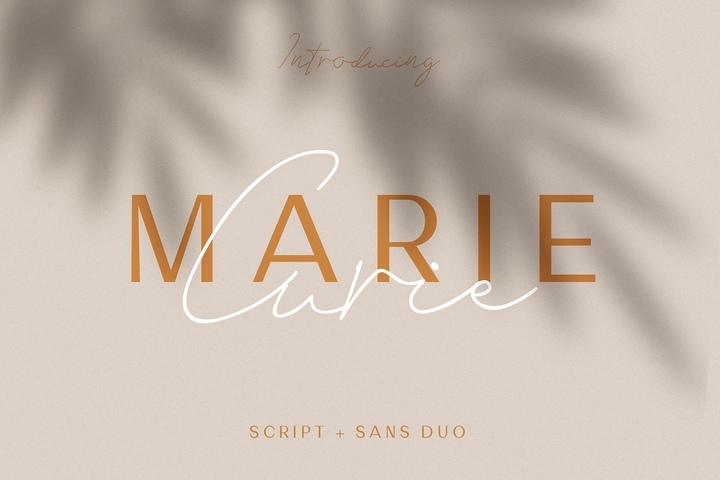
Marie Curie - Sans & Script Font
Marie Curie - Sans & Script Font is perfect for scientific research publications, women's empowerment campaigns, educational institution branding, STEM program materials, inspirational quote graphics, academic conference presentations, progressive healthcare branding, innovative laboratory signage, scholarship foundation materials, and pioneering research communications.
What makes Marie Curie - Sans & Script Font so exciting is its extraordinary ability to embody the groundbreaking spirit and intellectual courage of scientific discovery through complementary letterforms that seem to radiate both analytical precision and passionate dedication to knowledge. This inspiring font duo captures the essence of scientific excellence and pioneering achievement with characters that communicate both rational methodology and emotional commitment to discovery. The fonts' revolutionary design elements perfectly balance scientific authority with human inspiration, creating an indispensable toolkit that communicates intellectual courage, scientific innovation, and pioneering spirit, making them essential for organizations and projects celebrating the transformative power of scientific research and the remarkable individuals who dedicate their lives to advancing human knowledge.
Marie Curie - Sans & Script Font comes in multiple font families including Regular, Bold, Light, Italic, Bold Italic, Scientific, Pioneering, and Discovery variations for both sans and script versions. Each family member maintains the core inspirational characteristics while offering different intensity levels and stylistic approaches to suit various scientific and educational design requirements.
The scientific precision in Marie Curie - Sans & Script Font makes it particularly effective for research institutions and educational organizations where conveying both scientific credibility and inspirational motivation is crucial for engaging audiences with the wonder and importance of scientific discovery. The complementary fonts work exceptionally well together or independently across all scientific and educational applications, from research publications to motivational posters, maintaining consistent inspirational impact while offering design versatility.
Scientific communication professionals recognize how Marie Curie - Sans & Script Font transforms ordinary research communications into powerful statements of scientific excellence and human achievement. The font duo's comprehensive character sets include extensive scientific symbols, mathematical notation, and international language support that accommodate complex scientific requirements and global research collaboration needs.
For creative professionals serving research institutions, educational organizations, and science advocacy groups, Marie Curie - Sans & Script Font serves as the ultimate foundation for establishing memorable visual identities that capture the essential qualities of scientific excellence, intellectual courage, and pioneering determination that define successful organizations advancing human knowledge and inspiring future generations of scientists and researchers who will continue pushing the boundaries of discovery.